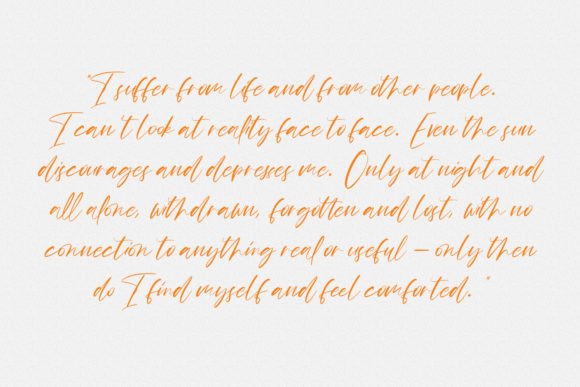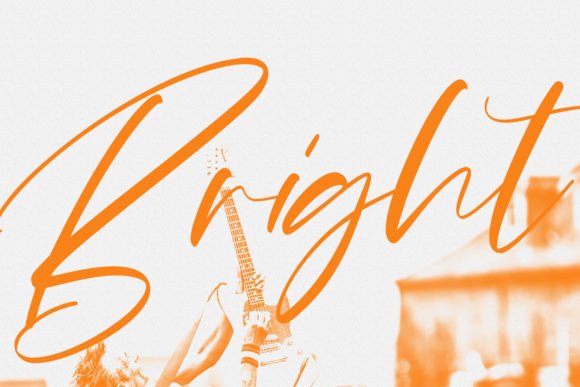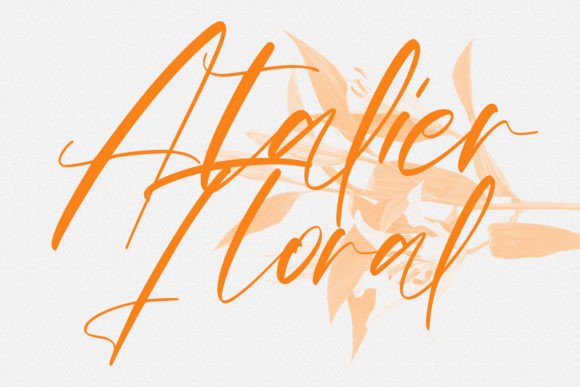
Introduction to Quiny Alissa Font
Quiny Alissa is an elegant and expressive script font.
It has a classy, elegant, and modern look that can be used for logos, branding, invitations, stationery, wedding designs, social media posts, and much more .